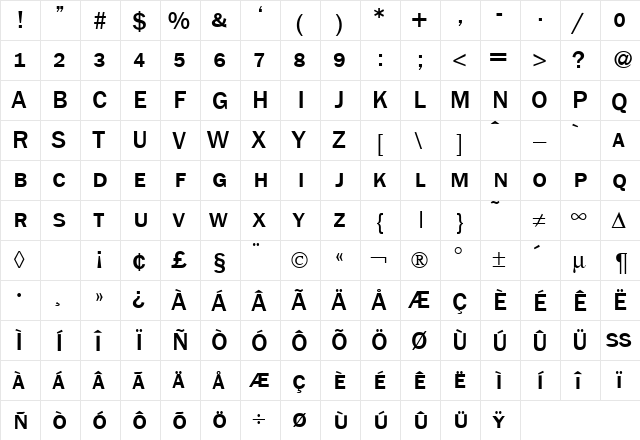
FranklinGothicNewSmcMedium Regular
Design Context for FranklinGothicNewSmcMedium Typeface
FranklinGothicNewSmcMedium has the quiet confidence of well-executed sans-serif typography: versatile, unobtrusive, and dependable at any size.
Font Pairing: Works well alongside a characterful serif or display font that can carry the expressive load while FranklinGothicNewSmcMedium handles the functional copy.
Pro Tip: Use FranklinGothicNewSmcMedium for UI labels, navigation, and short-form body copy where clean legibility is the priority.